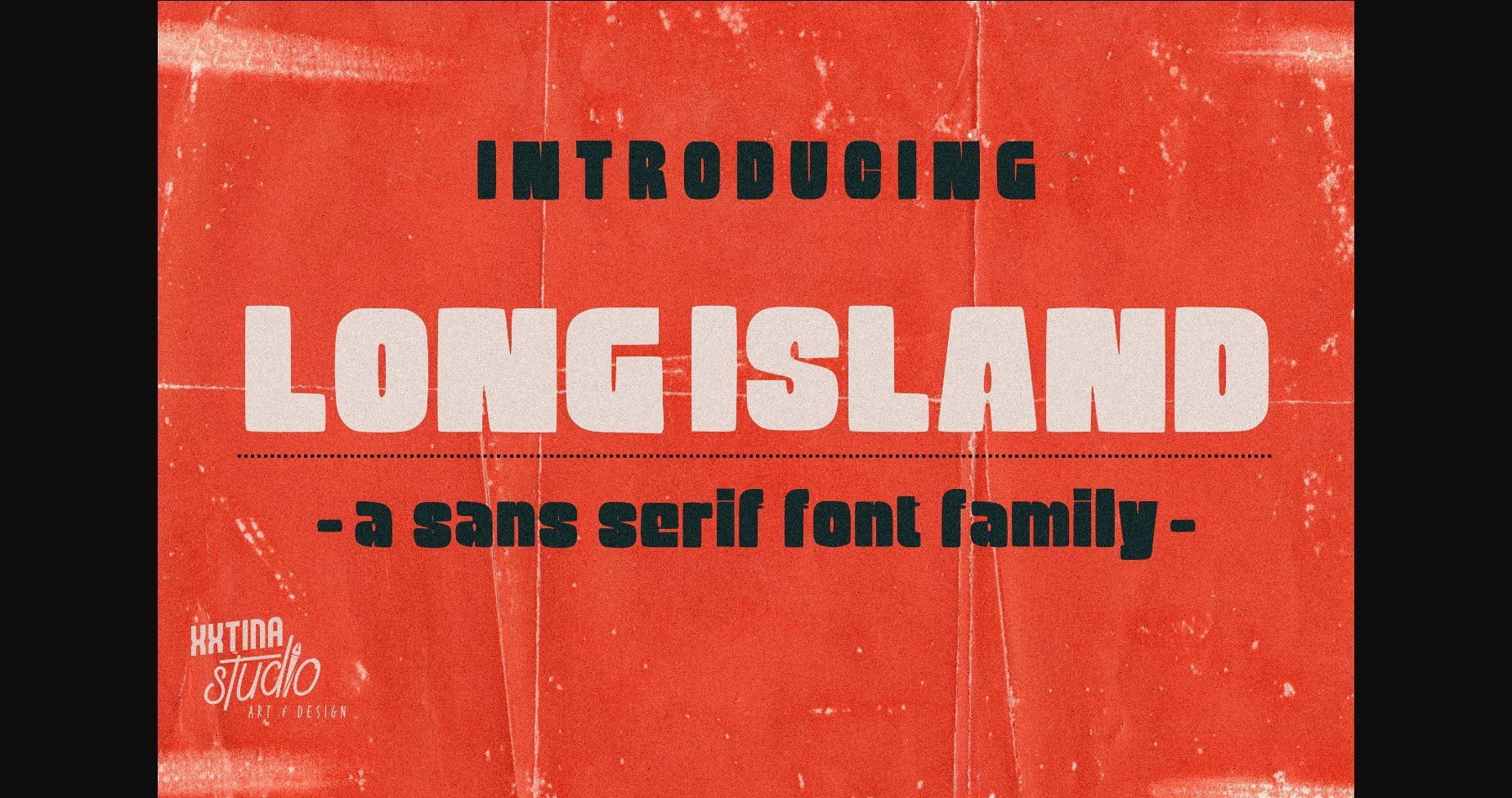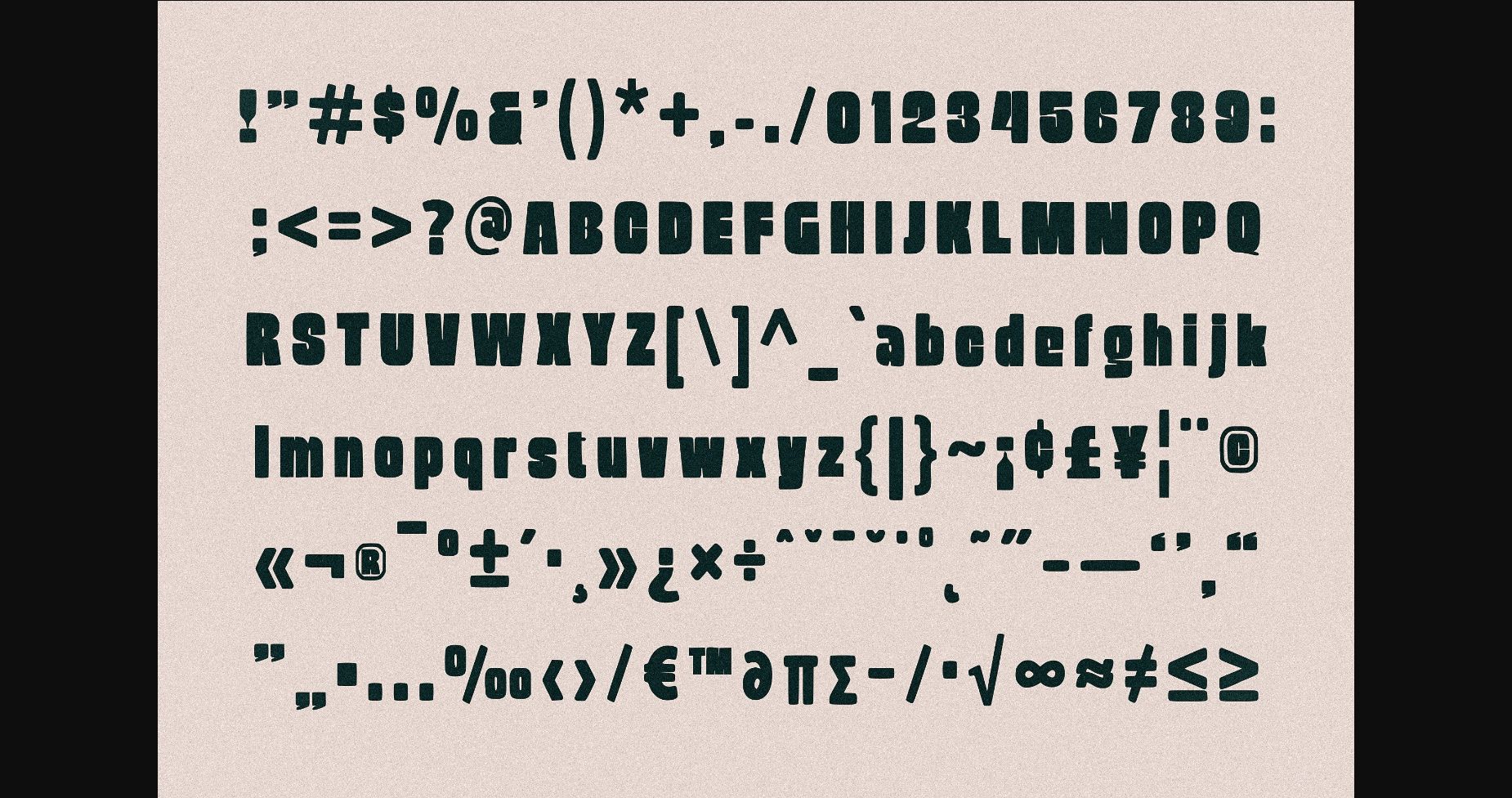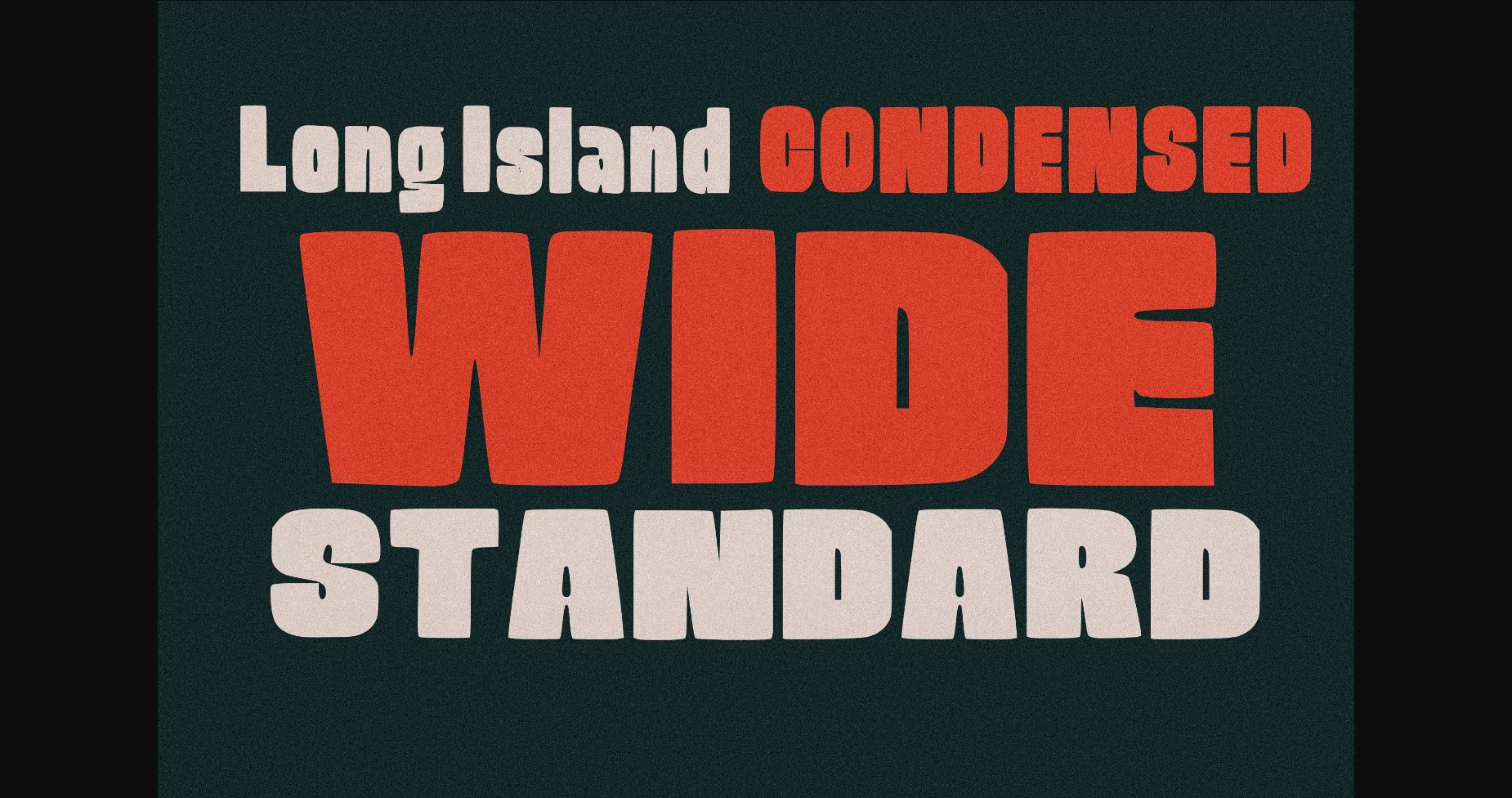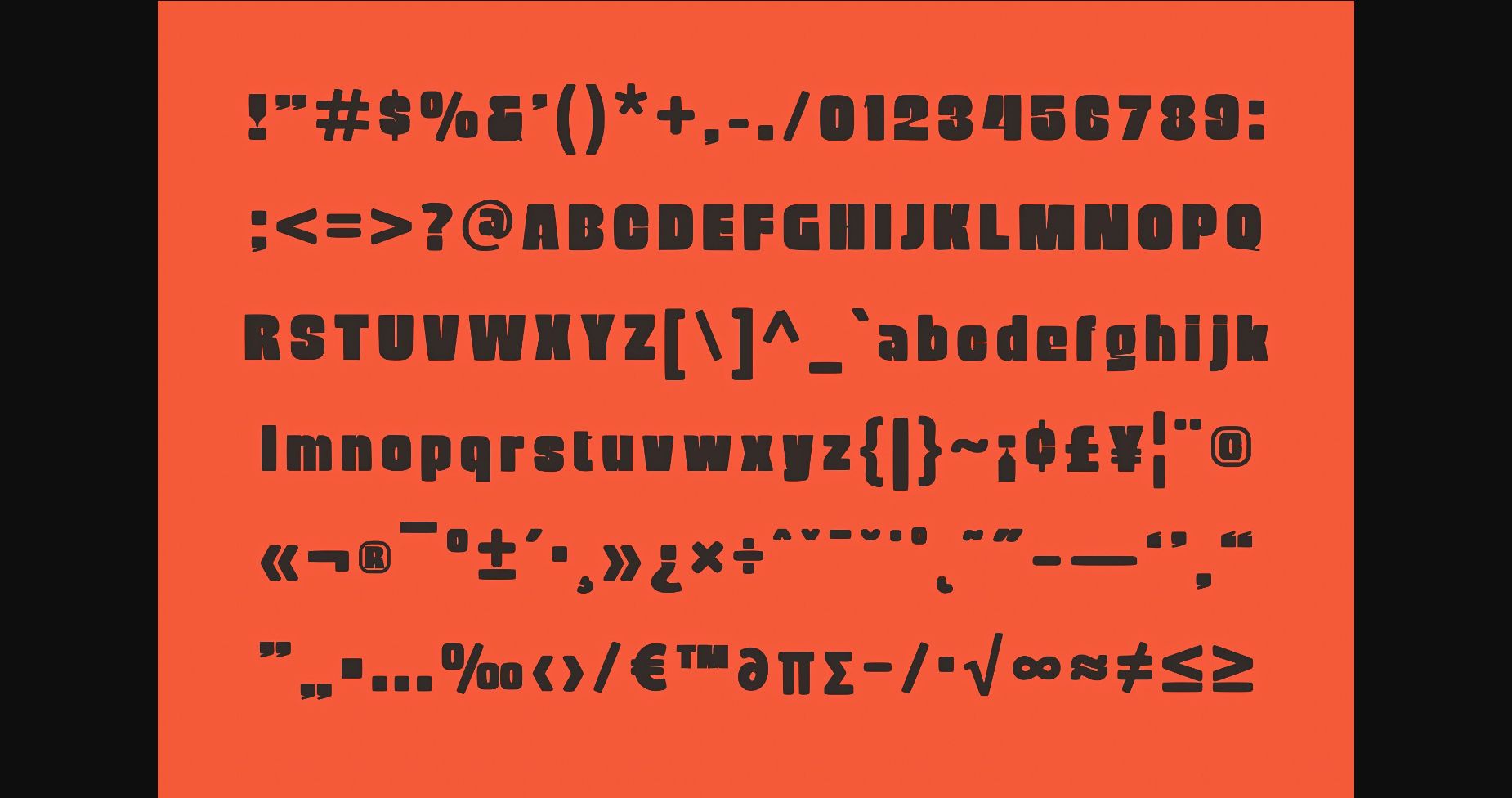
About Long Island Font
Long Island is a modern sans serif font with heavy, thick black/bold letterforms and extremely narrow, thin counters. Use it for product packaging, branding, or other projects that need bold and daring typography!